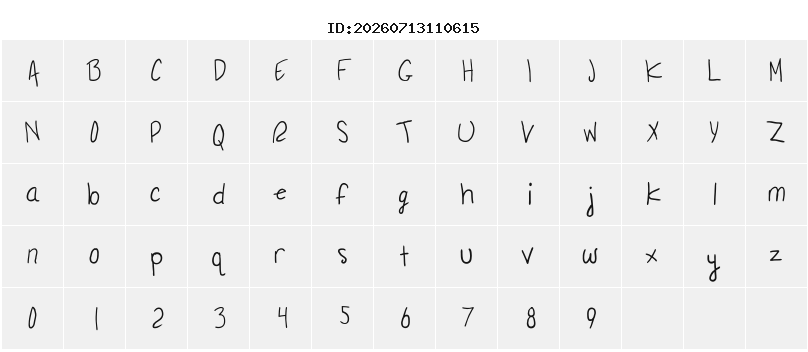
About Raila Skies.ttf
Raila Skies.ttf is a modern, elegant sans-serif font designed for ultimate readability and visual harmony. Perfect for branding, headlines, web design, and print materials.